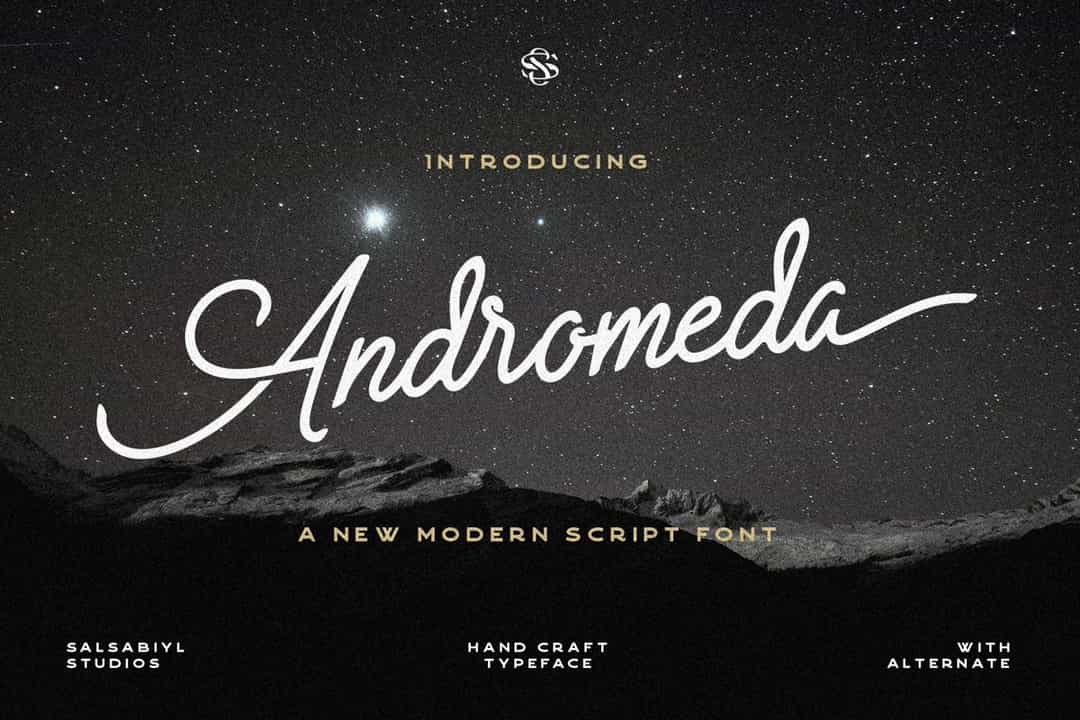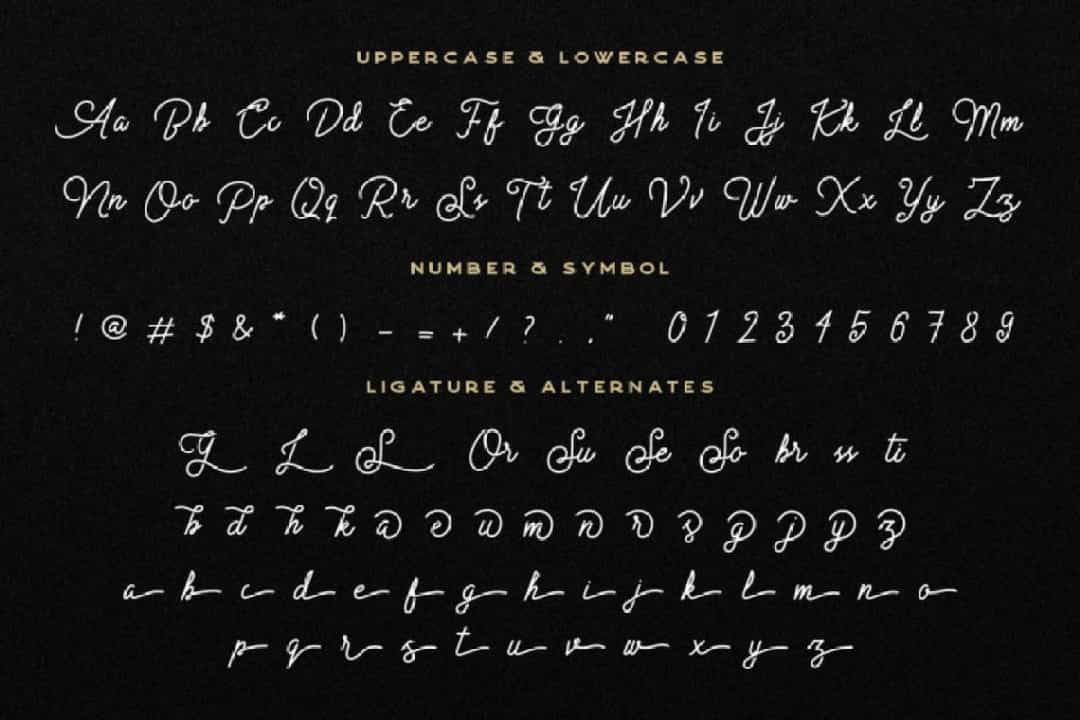
Andromeda is a beautiful handwriting typeface with a modern monolinear design that is perfect for today’s world. Best for brand projects, Andromeda has sharp corners with rounded corners and comes with a true handmade look. In addition, Andromeda includes many Alternates Characters and Ending Characters in the game play.